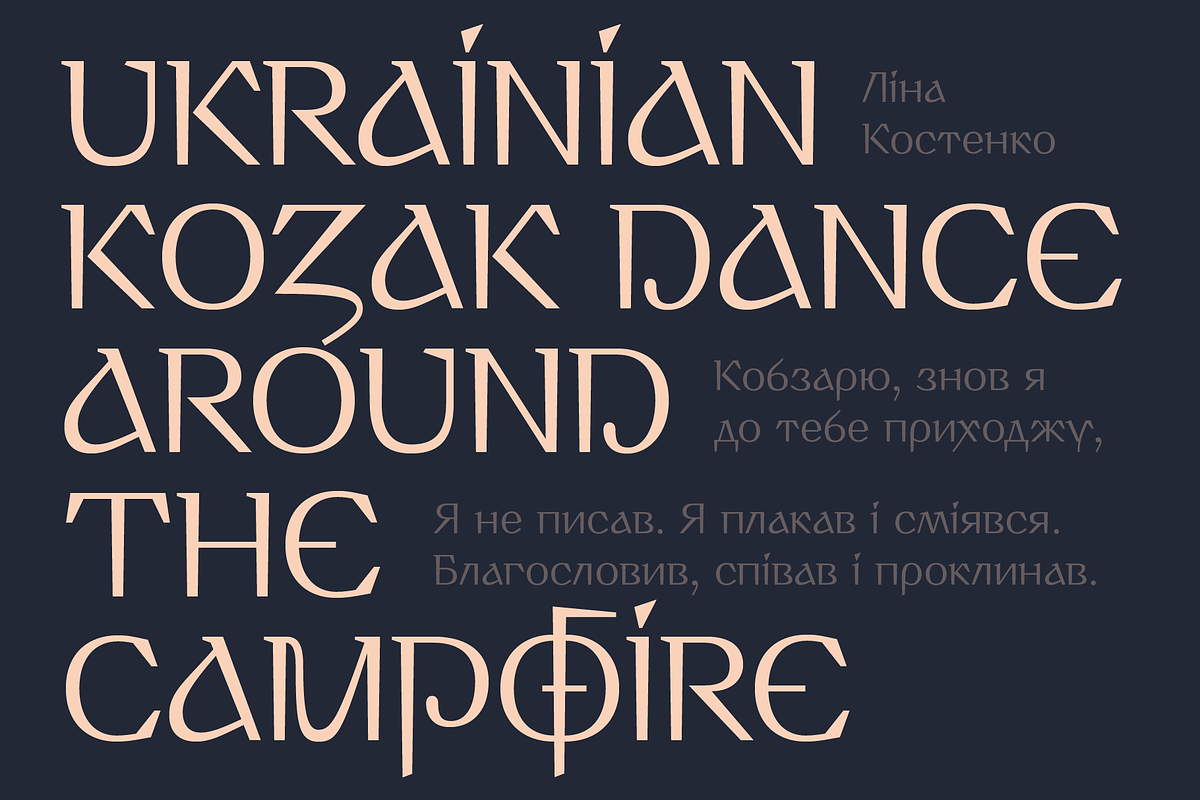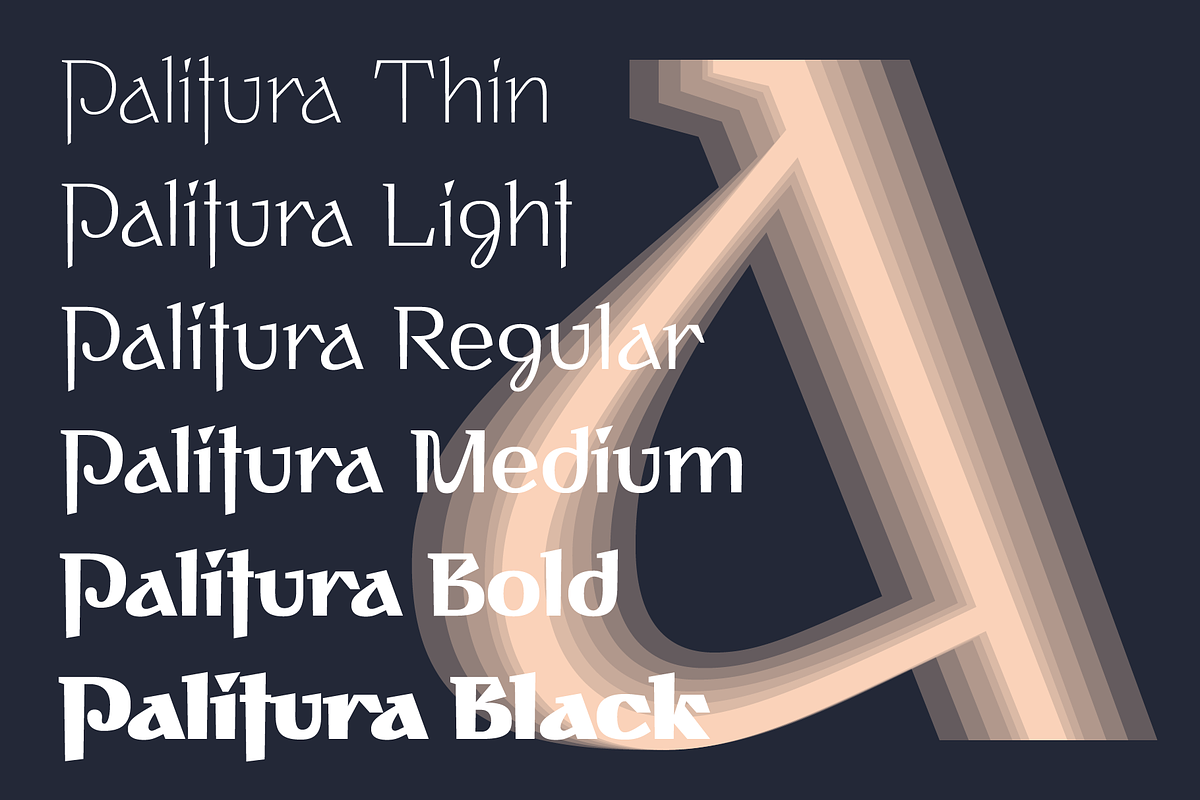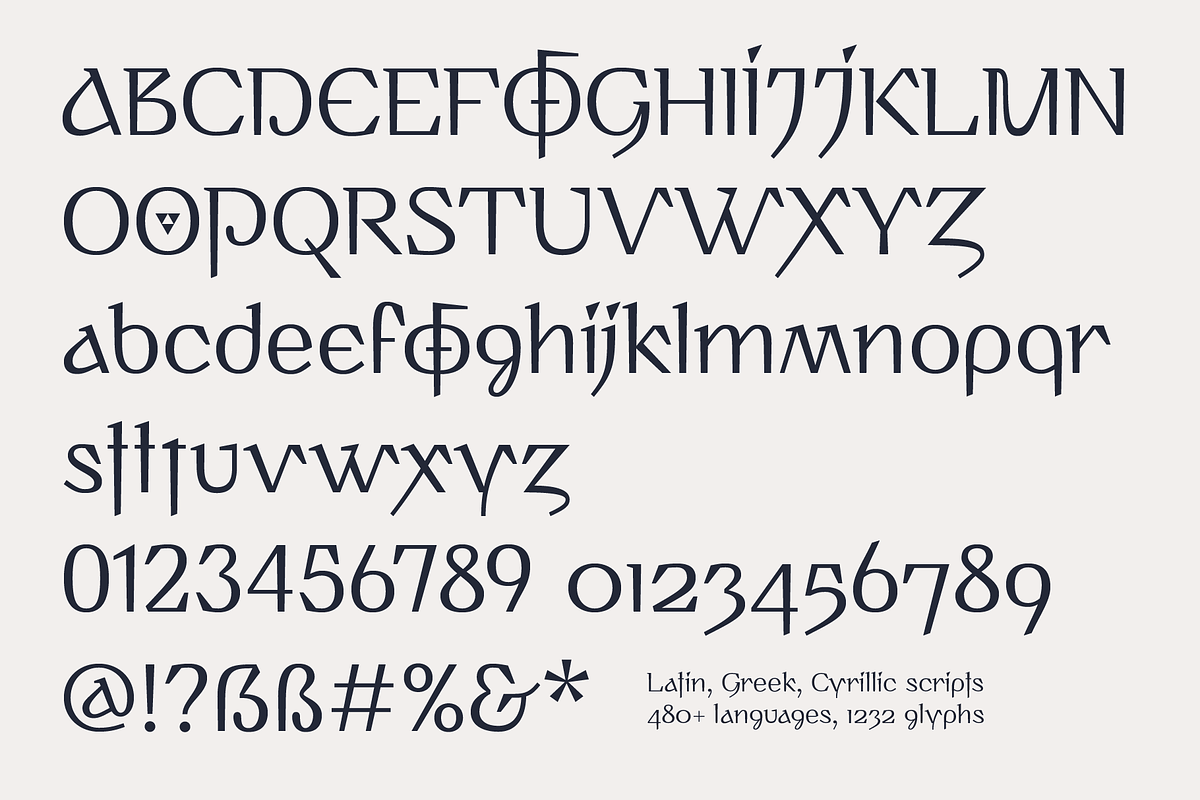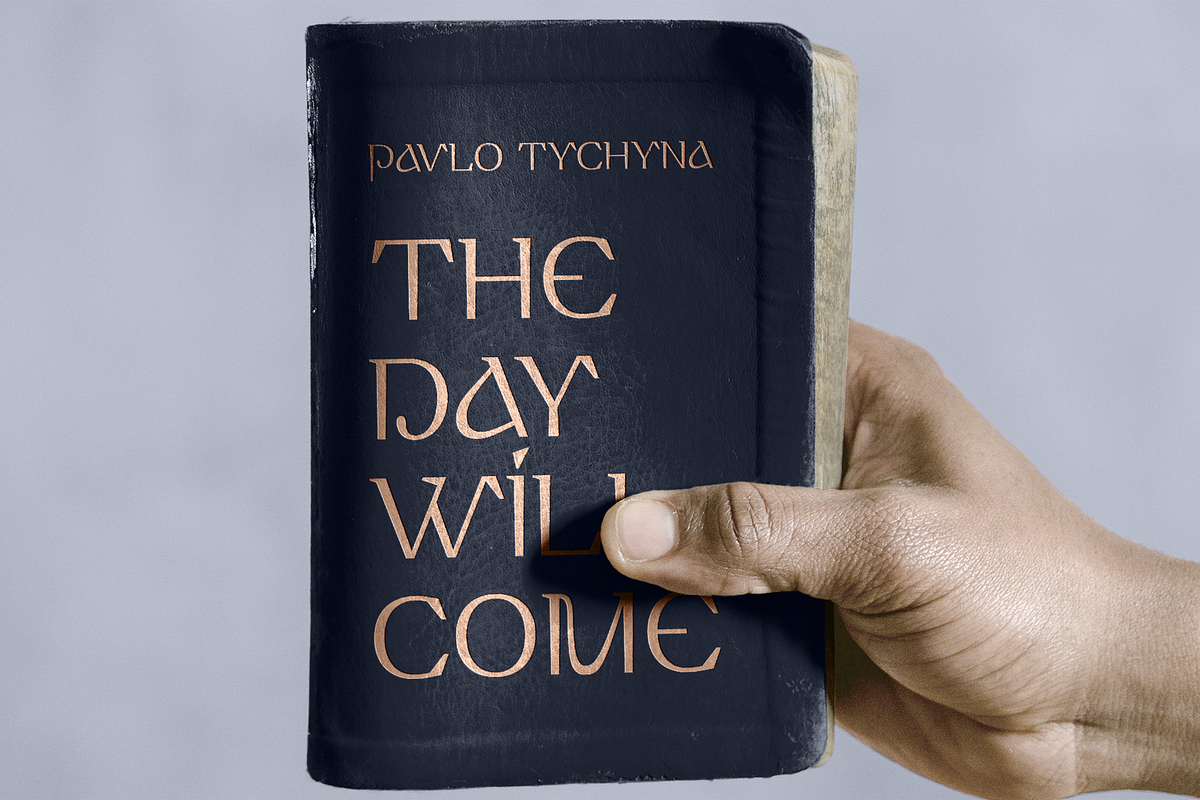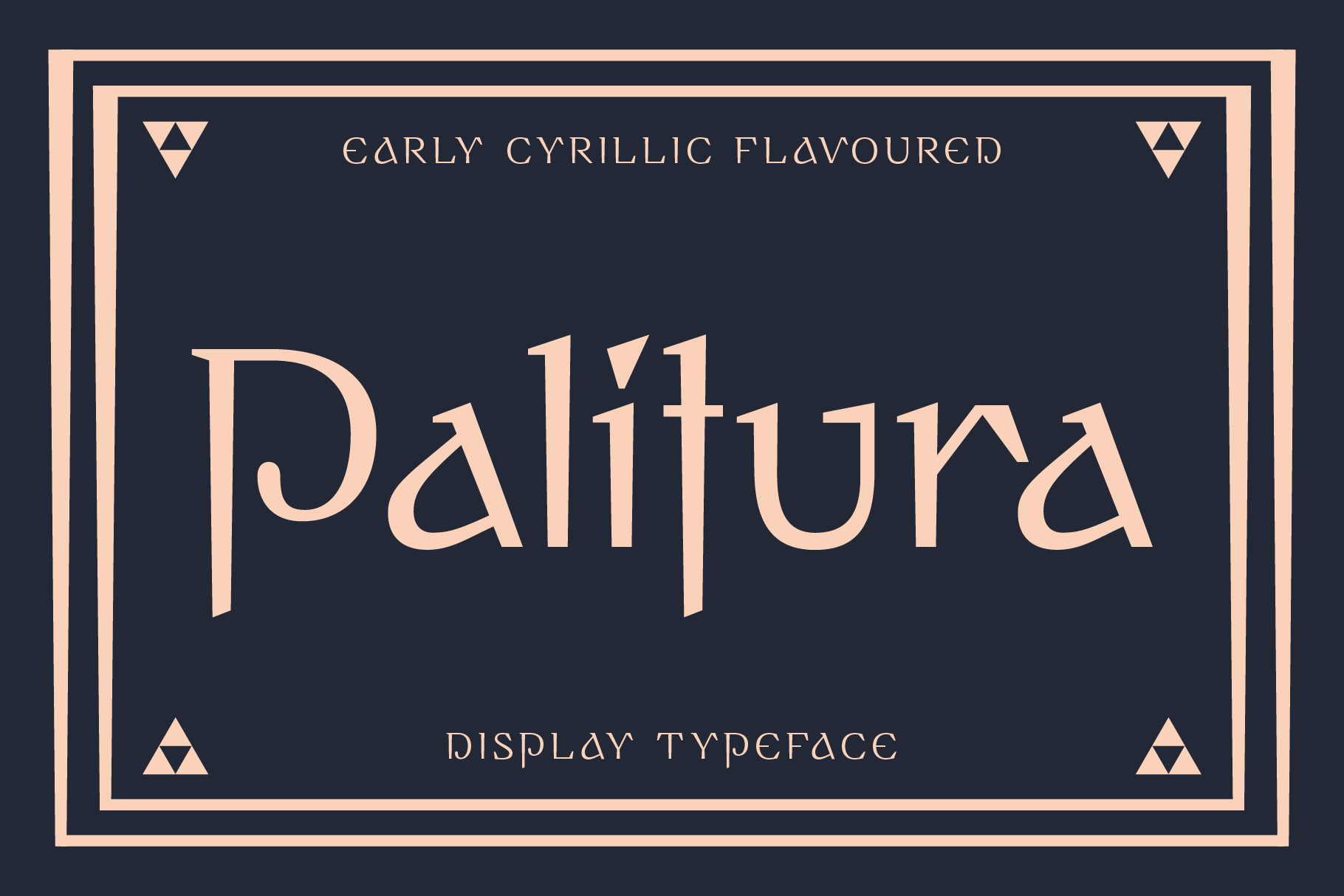
Palitura font
Palitura is a display typeface designed to translate Cyrillic flavor into the Latin script. Palitura means lacquered book cover in Old Ukrainian. The design of letter shapes is inspired by Early Cyrillic handwritten letters and Ukrainian patterns that are conveyed through the sharpness of form, vertical strokes that are narrower at the bottom, stylized oblique hooks at the top, and triangular accents.
Scripts: Latin, Greek, Cyrillic.
OpenType features
Localized Forms: 47 character substitutions for Azeri, Bulgarian, Catalan, Dutch, German, Kazakh, Moldavian, Polish, Romanian, Tatar, Turkish.
Glyph Composition/Decomposition (Diacritics): Full Latin and based Vietnamese set of diacritics (561 characters). Precomposed.
Lining Figures: 0123456789. Figures are the same height as uppercase letters (cap height). Proportional, used by default.
Oldstyle Figures: 0123456789 #%‰. Designed to match with lowercase letters. Proportional.
Ordinals: adehnorst.
Superscript, Subscript, Numerator, Denominator: 0123456789.
Fractions: ¼½¾⅐⅑⅒⅓⅔⅕⅖⅗⅘⅙⅚⅛⅜⅝⅞⅟ (precomposed). Any other fractions (even those typed through a slash) will also be displayed correctly, with the automatic replacement to Numerator + fraction + Denominator.
Slashed Zero: All 0 figures, including Lining, Oldstyle, Superscript, Subscript, Numerator, Denominator.
Contextual Alternates: ΆΈΉΊΌΎΏ. Greek uppercase accented characters lose their tonos accent and retain only dieresis in All Caps mode. Turned on by default. If you need tonos accents in All Caps then turn off Contextual Alternates (calt) feature.
Stylistic Alternates: BEFGIJORTefmt.